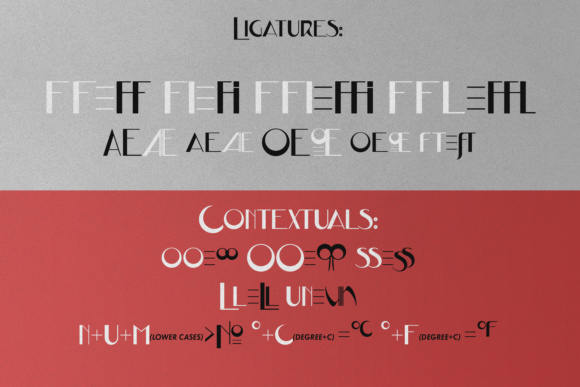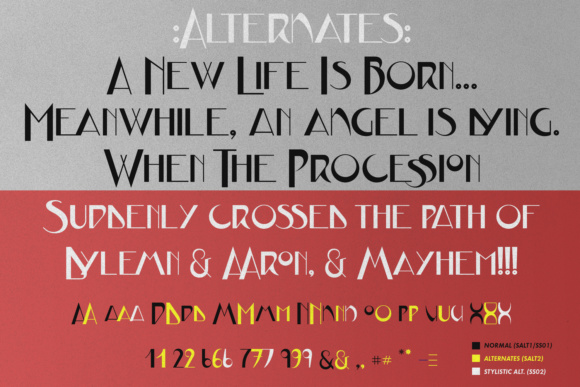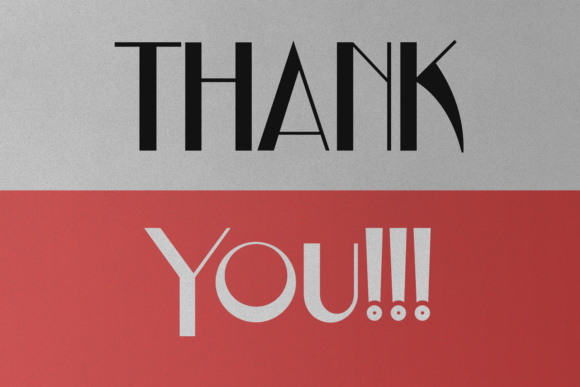
Introduction to JVNE CoalWorks Font Font
Fonts play a crucial role in design, and the JVNE CoalWorks Font font is a typeface that brings both character and versatility to any project. Whether you’re working on a branding project, a website, or a print design, the JVNE CoalWorks Font font offers a unique style that can elevate your work.
False-face recreation of a personal favorite 1982’s 12 inches single titling font.
The set-list was quite amazing and will marry greatly with another fav typeface, made by Ray Larabie from Typodermic (For sure the afficionados of S&tB will take it all).
Key Features of JVNE CoalWorks Font Font
Why Choose JVNE CoalWorks Font Font?
The JVNE CoalWorks Font font is more than just a typeface – it’s a design tool that helps you communicate your message with style and clarity. Its unique character set and versatile design make it suitable for a wide range of applications, from elegant invitations to bold headlines.
With its carefully crafted letterforms and balanced proportions, the JVNE CoalWorks Font font ensures readability and visual appeal across all mediums.
What makes JVNE CoalWorks Font font special?
The JVNE CoalWorks Font font stands out with its unique design, exceptional readability, and versatility across various design applications.